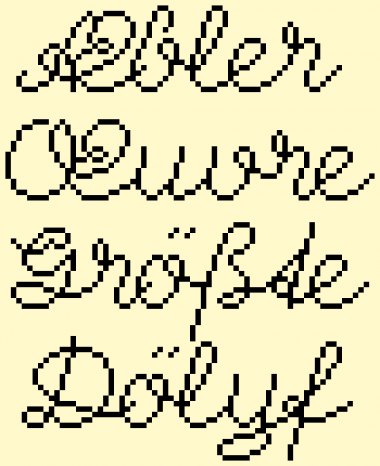
I haven't even finished the upper case, but I was curious. Could someone from the Netherlands (or a speaker of Dutch) please tell me how my IJ should look. The first line is simply I followed by J, which looks awkward, because they don't connect; the second one is my ligature; and the third is a Y. What is easier to read? What is more elegant? What is more realistic?
Excellent pixel script!
In Dutch handwriting Y can represent both Y and IJ. The third line in your sample shows the correct approach. I have never come across the two other ways of doing it.
The above image is just to showcase some of my favourite characters: The Æ, Œ, ß, and D. Also, I like how the descender and ascender connect in the combination 'yf'.
Impressive piece of work! There are a lot of great ideas in this one.
After the discussion over at "Manuale Neue Bold", I have changed my polish diacritics a little :)
I always appreciate a fontstruction that has a character set longer than the sample text. :-) Beautiful piece of work! If I was designing it, I'd make the J in IJ drop below the baseline.
Very nice font!